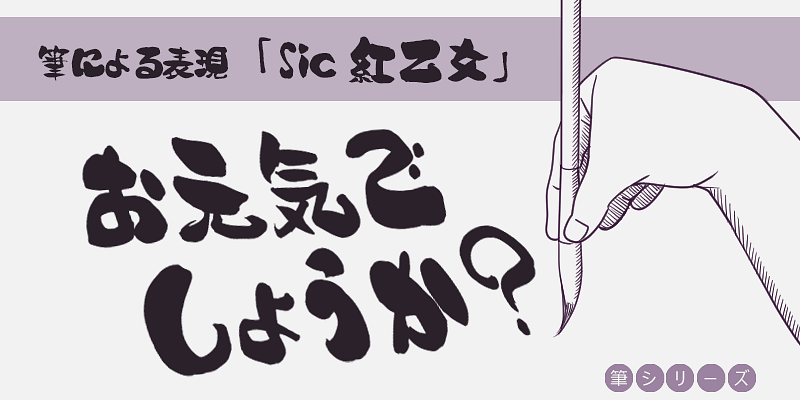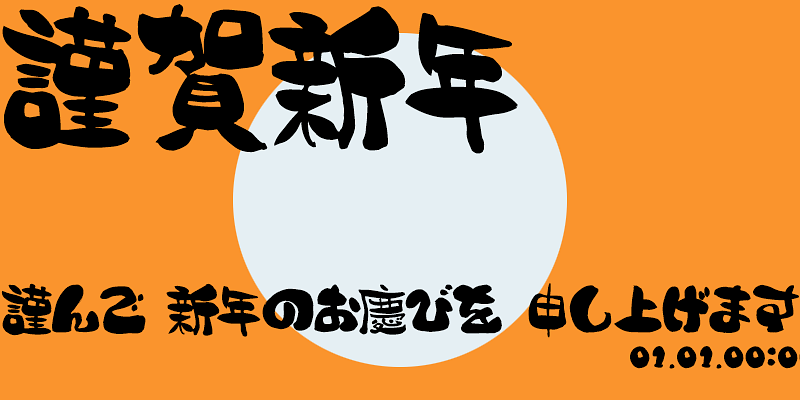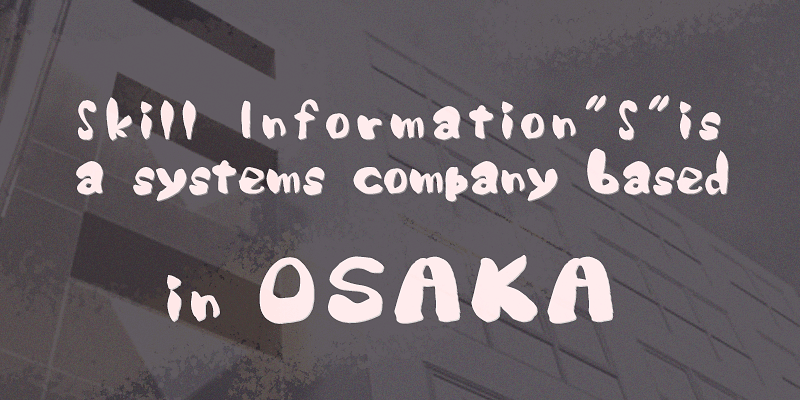
The handwritten brush script fonts by Hideo Miyagi are characterized by unique brushstrokes that combine strength and delicacy. The bold characters are powerful and impactful, while the fine characters create a delicate and nuanced expression. The natural variation in brush pressure conveys warmth and ensures excellent readability. His typeface designs harmonize traditional Japanese aesthetics with modern design, making them suitable for a wide range of uses, such as izakaya menus, posters, and YouTube thumbnails. Miyagi’s emotionally rich brush scripts add both strength and warmth to any design projects.
Known for its focus on software development, particularly for the health services industry, Skill Information“S” found itself in the font business through a collaboration with Techno Advance Co, Ltd, in 2007.